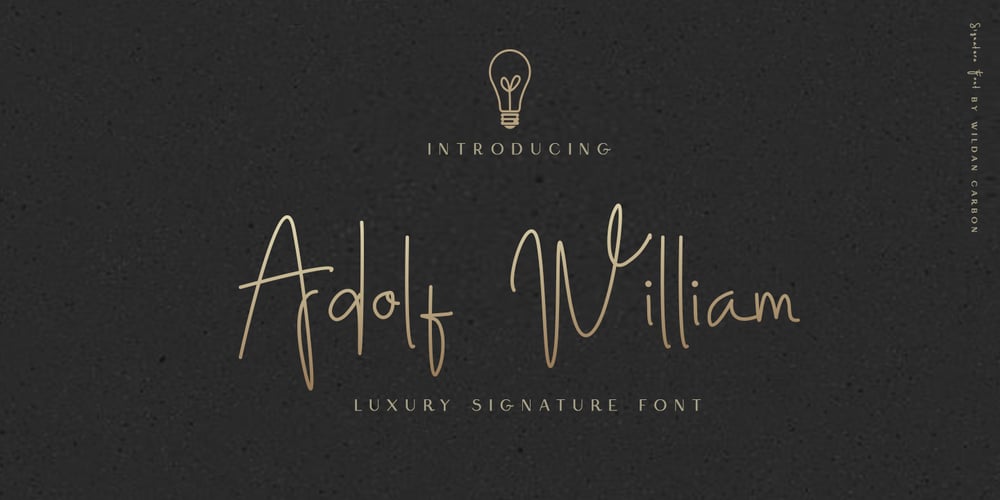
Adolf William
Adolf William font
Adolf William Font Family was designed by Wildan Carbon and published by Wildan Type. Adolf William contains 1 styles and family package options. Adolf William is a handwritten signature script with a natural & stylish flow. This collection of scripts is perfect for personal branding. It was made with the intention to be used by Photographers as a watermark for Photography Business,personal branding & wedding invitations to advertising